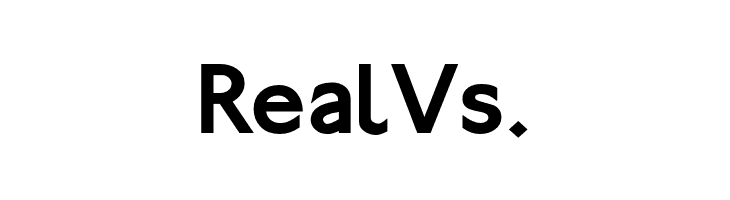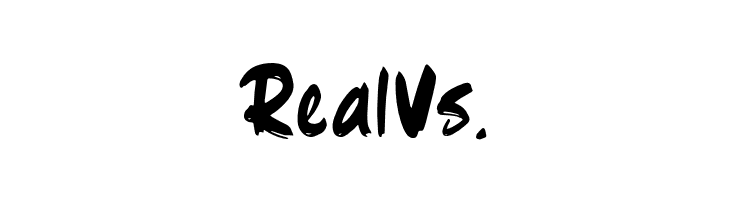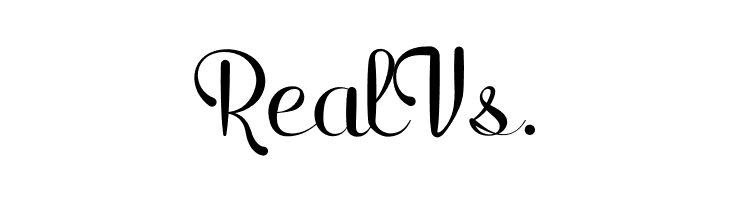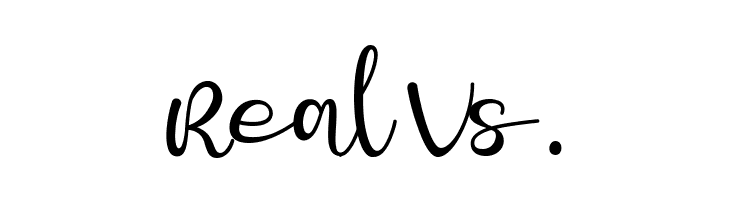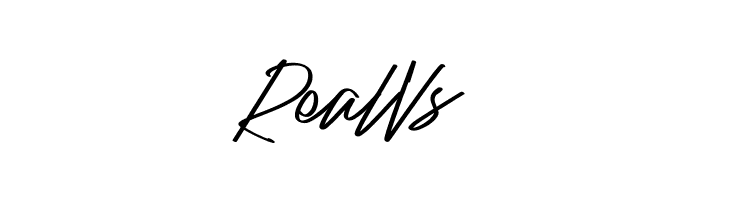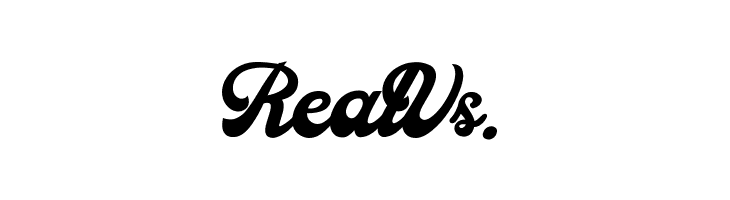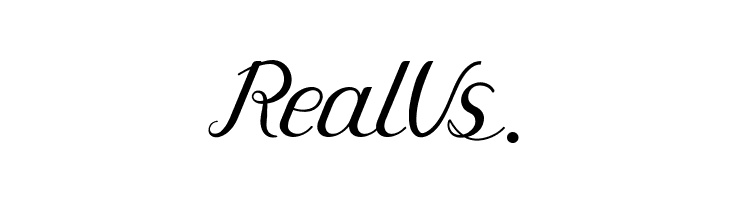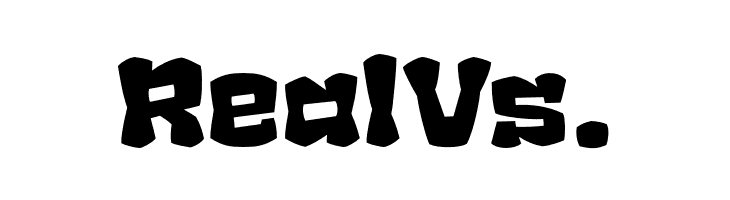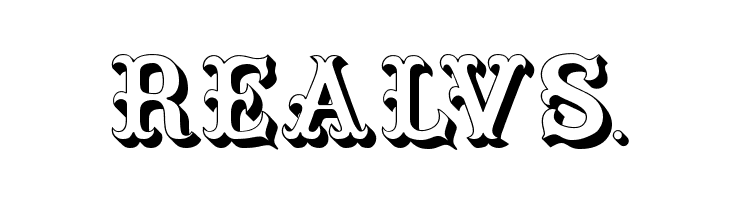
A bold, brush-style font with dynamic strokes and artistic flair.
A casual, handwritten font with an organic and lively appearance.
A bold, energetic handwritten font with a brush-like appearance.
A bold, dynamic handwritten font with a brush-like texture.
A bold, decorative font with vintage, ornate detailing and shadow effects.
A bold, playful font with a hand-drawn, irregular style.
A bold, decorative font with a 3D outline and shadow effect, perfect for modern designs.
A graceful and flowing script font with elegant, connected strokes.
A bold, cursive font with connected characters and a dynamic flow.
A modern, minimalist font with geometric shapes and dot embellishments.
A flowing script font with elegant, connected strokes and a handwritten feel.
A sophisticated cursive script font with a seamless, flowing style.
A bold, geometric font with rounded edges and uniform strokes.
A dynamic, italicized script font with fluid, expressive strokes.
A bold, geometric font with strong, thick strokes and a modern touch.
A decorative, boxed font with a modern and geometric style.
A bold, modern font with sharp angles and smooth curves, perfect for making a statement.
A dynamic and elegant script font with fluid, cursive letterforms.
A clean, modern sans-serif font with geometric shapes and uniform strokes.
A modern, playful font with continuous, flowing lines and rounded edges.
A bold, handwritten-style font with thick strokes and smooth curves.
A bold, decorative font with rounded terminals and a vintage railway-inspired style.
A modern, semi-bold sans-serif font with clean lines and balanced proportions.
A bold, decorative font with a vintage railway-inspired style.
A playful, bold handwritten font with smooth curves and a modern, informal style.
A fluid and elegant handwritten script font with a personal touch.
A bold, geometric font with strong, uniform letterforms.
A classic serif font with elegant, rounded terminals and high contrast strokes.
A bold, brush-style font with dynamic and expressive strokes.
A playful and whimsical script font with a handwritten style.
A playful and whimsical script font with smooth, flowing curves.
A playful and elegant script font with flowing, cursive design.